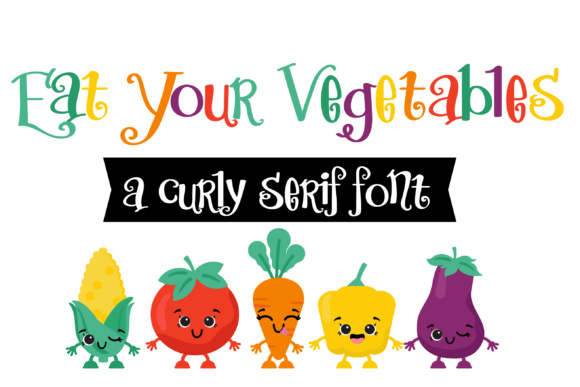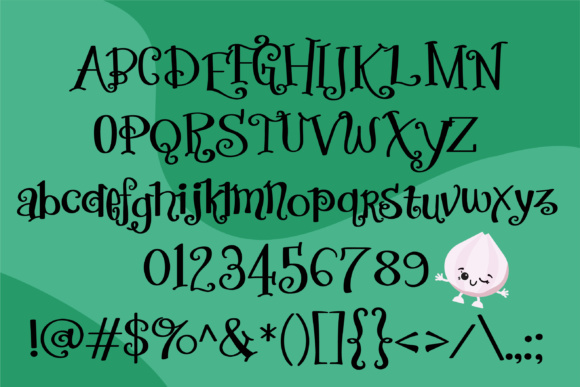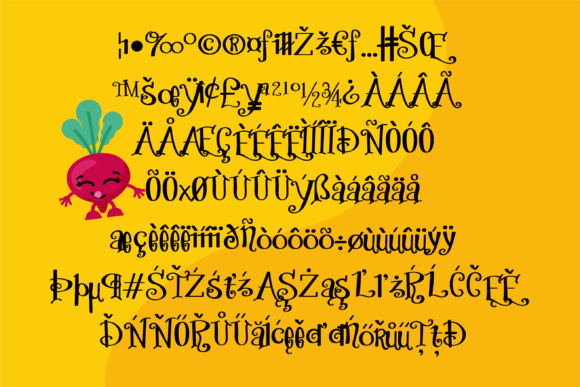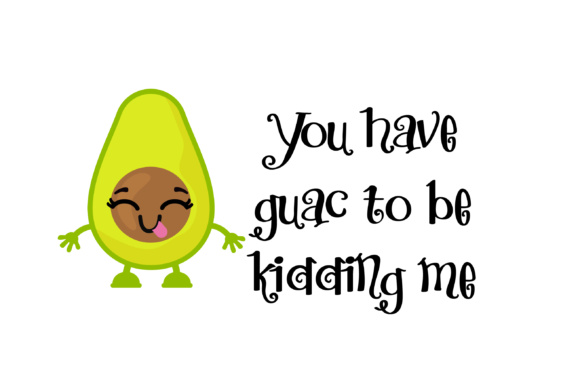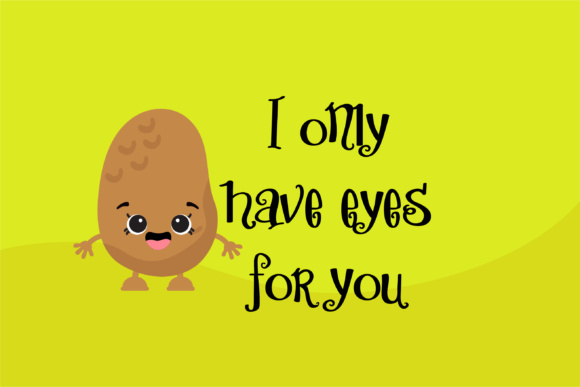
HomeScript FontsEat Your Vegetables Font Script Fonts Eat Your Vegetables Font FacebookXPinterestWhatsApp Eat Your Vegetables Font Poster 2 Eat Your Vegetables Font Poster 3 Eat Your Vegetables Font Poster 4 Eat Your Vegetables Font Poster 5 About Eat Your Vegetables Font Eat Your Vegetables is a whimsical serif font iswith sporting curls throughout and has a wonky baseline DOWNLOAD ON CREATIVE FABRICAThis font is sold and delivered by Creative Fabrica. Font Canyon may earn a commission if you buy through this link. People also explored Hanasakanasira Font Saint Germain Font Sign Panthers 2 Font Wonderful Day Font Blessing Font Grace Font Groovy Grunge Snowy Font Serendipity Font Mickaila Font 409 0 TagsEat Your Vegetables Font Previous articleToastie FontNext articleAphrodisiac Font LEAVE A REPLY Cancel reply Comment: Please enter your comment! Name:* Please enter your name here Email:* You have entered an incorrect email address! Please enter your email address here Website: Save my name, email, and website in this browser for the next time I comment. Personal Use Free Krait Personal Use Free Read more about this font Dream Orphans Personal Use Free Read more about this font Castina Personal Use Free Read more about this font Boston Traffic Personal Use Free Read more about this font BLOG Free Fonts Risk: Why Free Fonts Can Be Dangerous for Designers Free Fonts Risk: Why Free Fonts Can Be Dangerous for Designers Using free fonts is a common practice in web and graphic design. However, the... 5 Fonts That Will Dominate Design Trends in 2026 Best Fonts for YouTube Videos: Make Your Thumbnails Stand Out How to Install and Use Fonts on Windows, macOS, and Web Projects